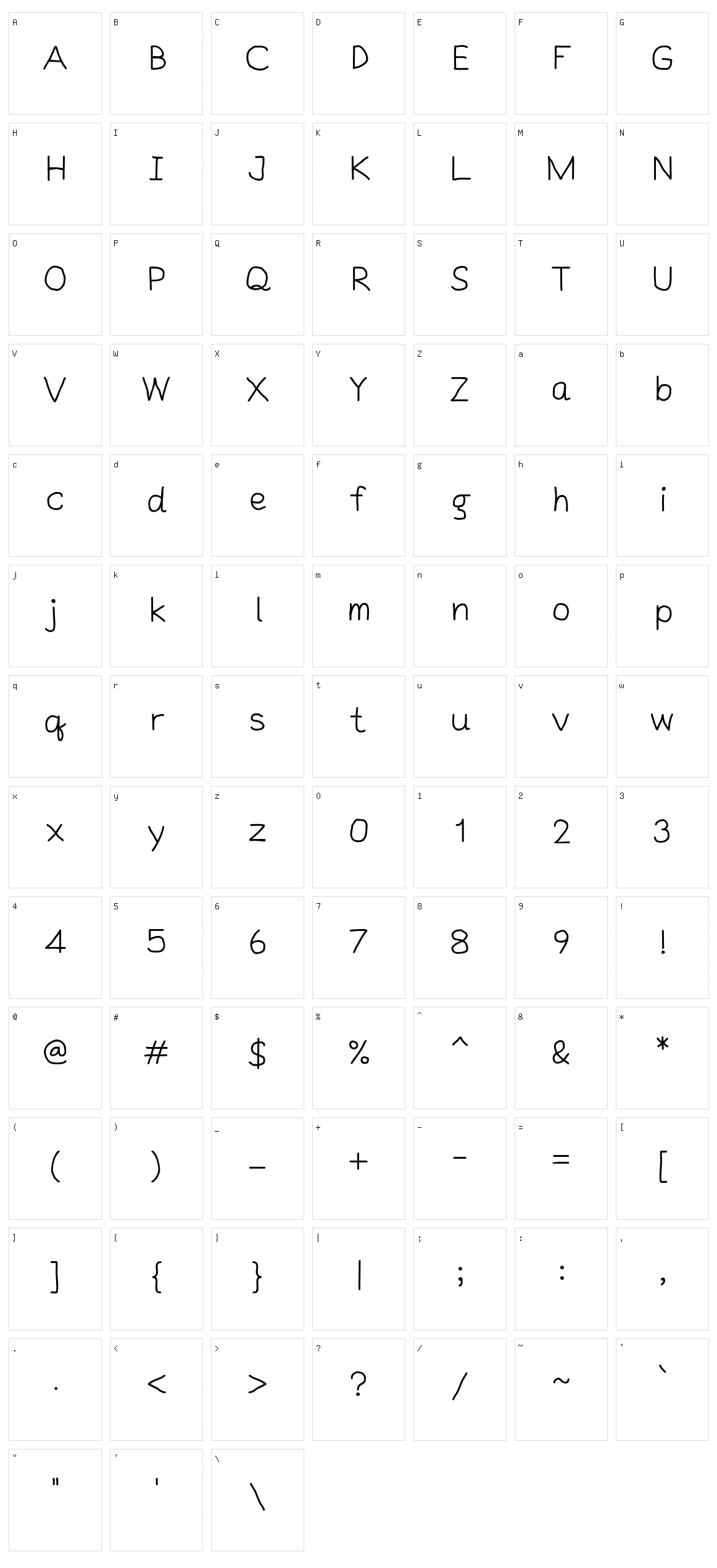
The free font SNTS MouseLaak TP is carefully designed by Seksan Neramitthanasombat, showcasing a thoughtful balance of creativity and usability and falls under the Script font style. When you download the ZIP file, it contains only 53.09 KB of font files, making it lightweight and quick to download. Please review the license details below to understand permitted usage and distribution rights. If license information is not available, we recommend using this font for personal projects only or contacting the author directly for commercial usage permissions.